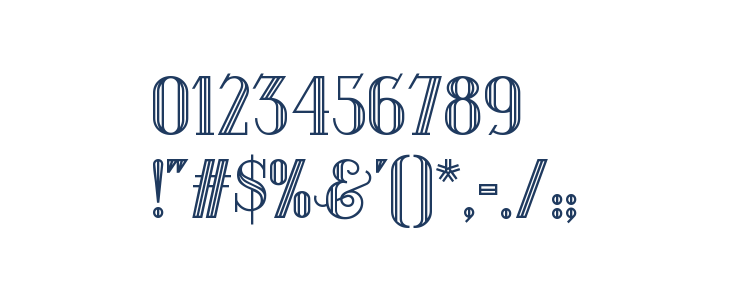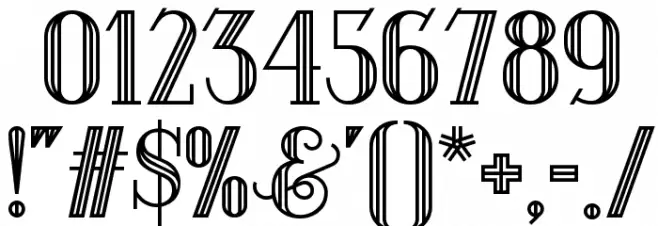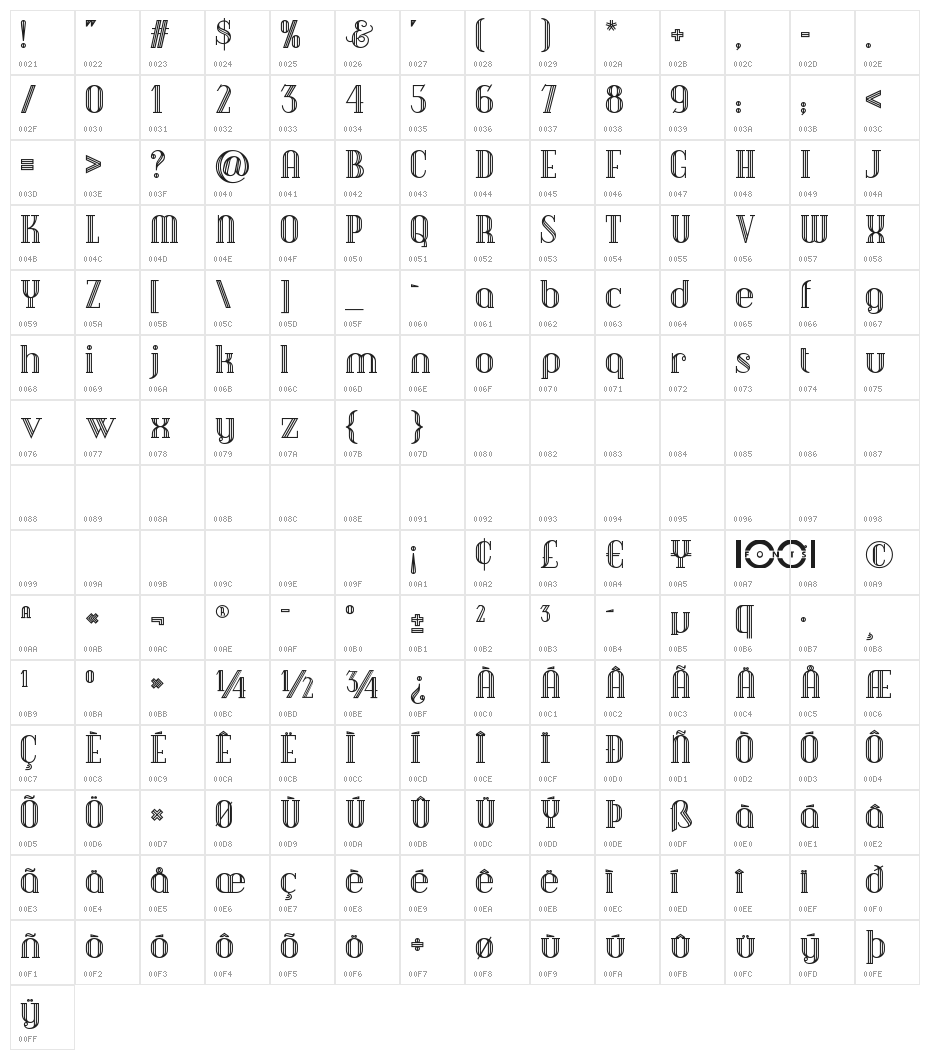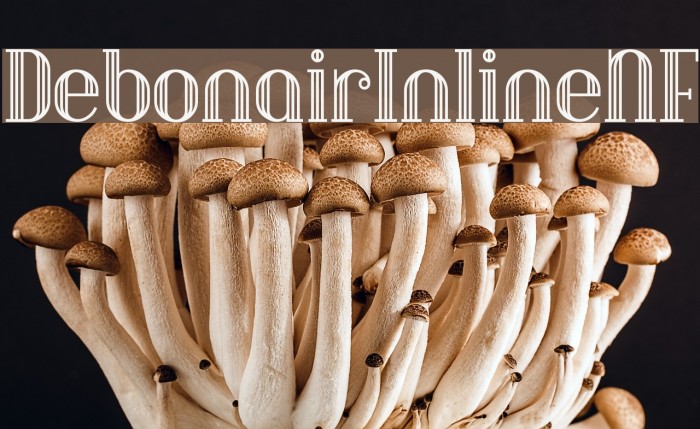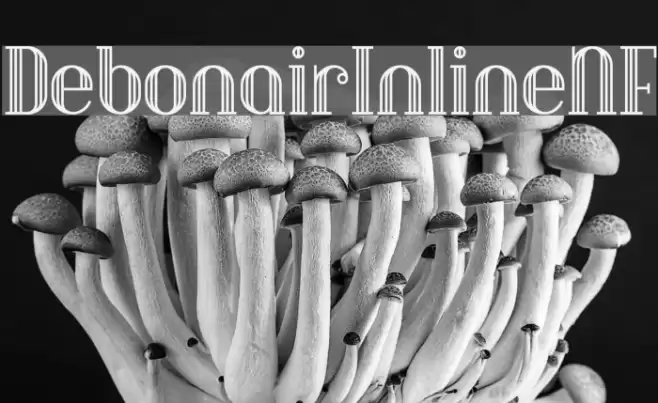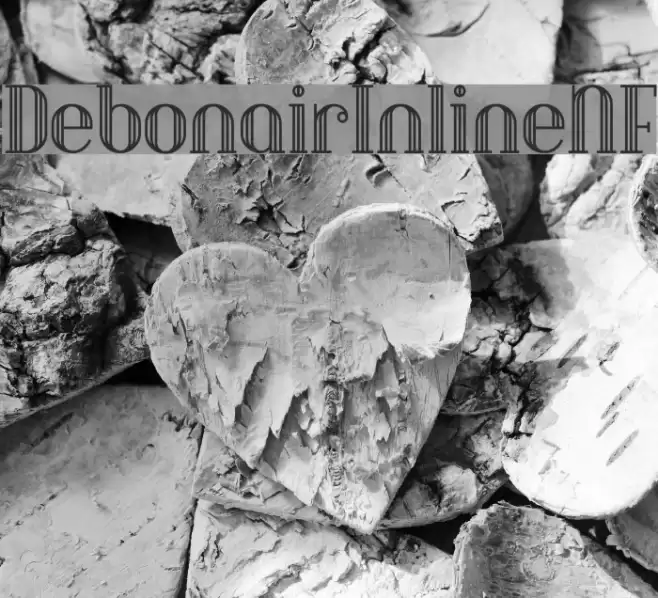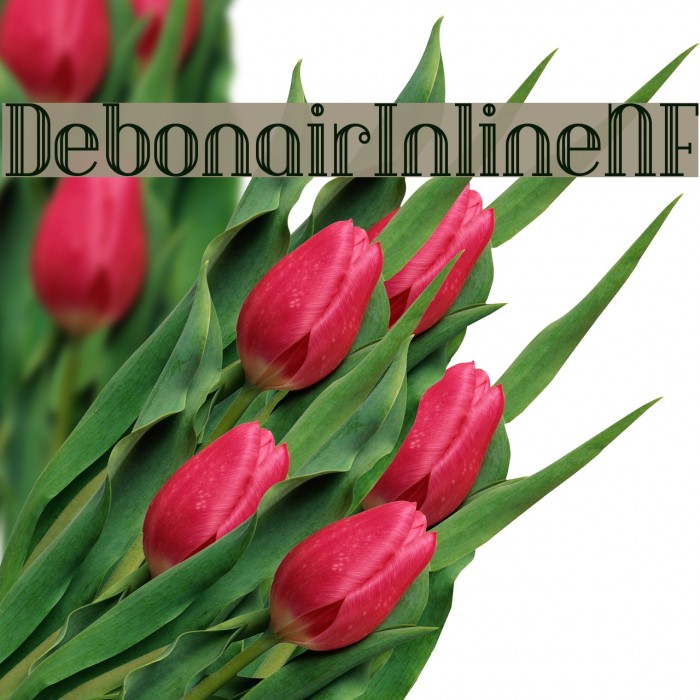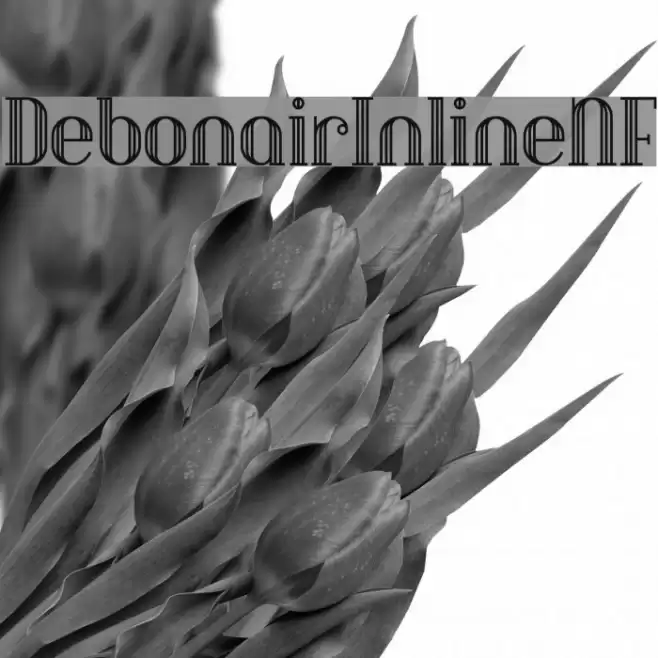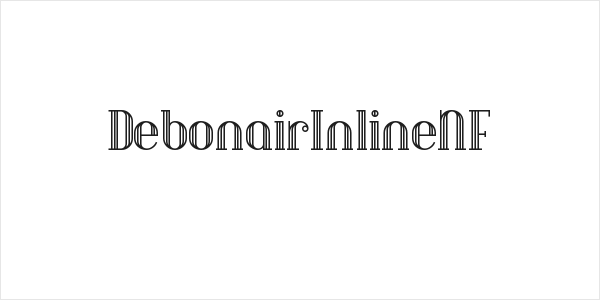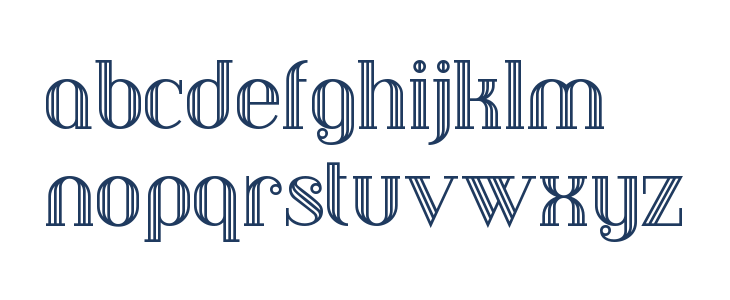
DebonairInlineNF Font
DebonairInlineNF Description
This font features a unique and elegant design with an inline style that gives it a sophisticated and decorative appearance. The uppercase and lowercase letters are crafted with a series of parallel lines that create a sense of depth and intricacy. The numbers and special characters maintain this consistent inline pattern, adding to the overall cohesive look. The font's design is both modern and vintage, making it versatile for various creative projects. Its distinct style is ideal for capturing attention and conveying a sense of luxury and refinement.
| Overall Style | Modern, Vintage |
| Proposed Projects | Ideal for luxury branding, wedding invitations, high-end product packaging, and editorial design. |